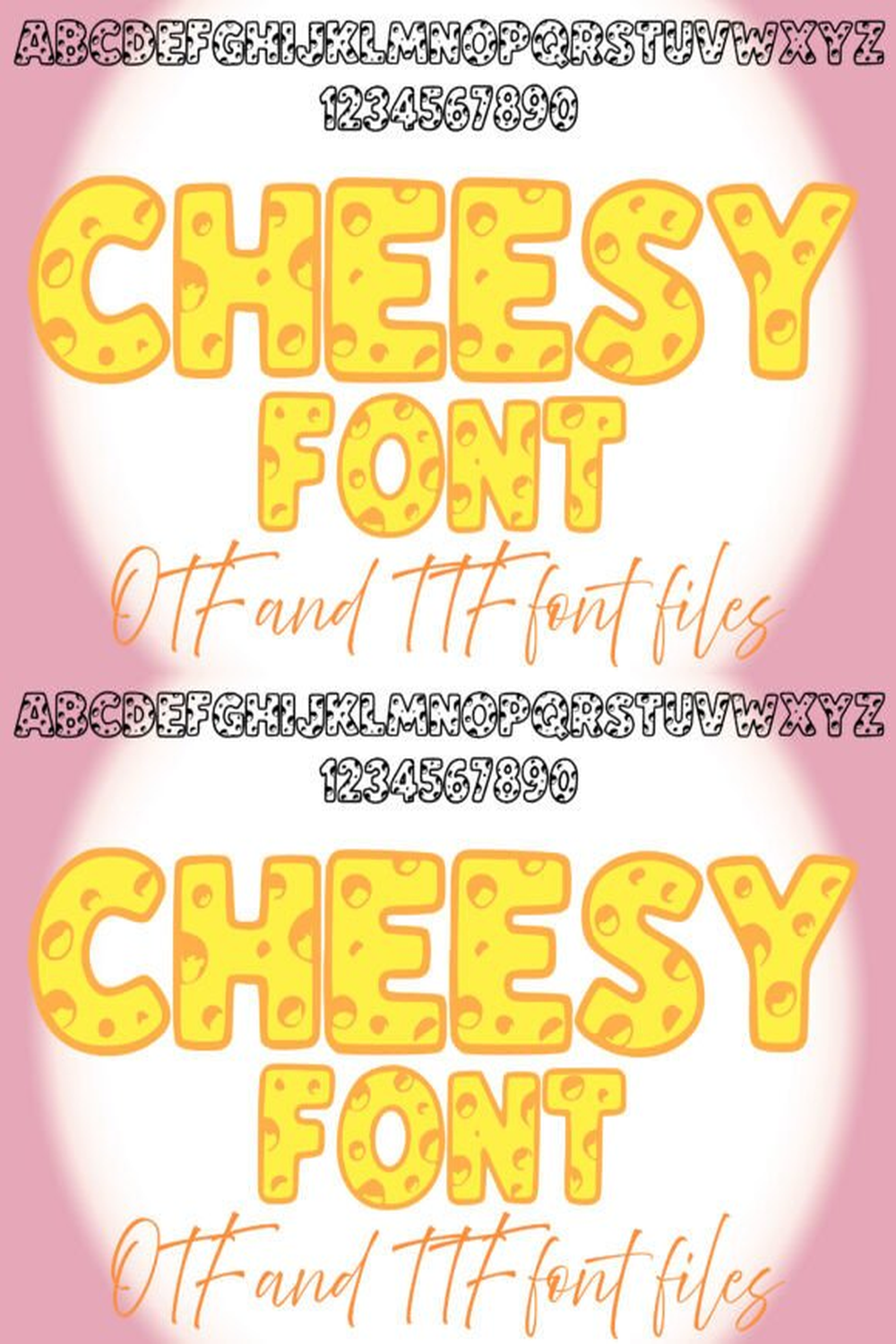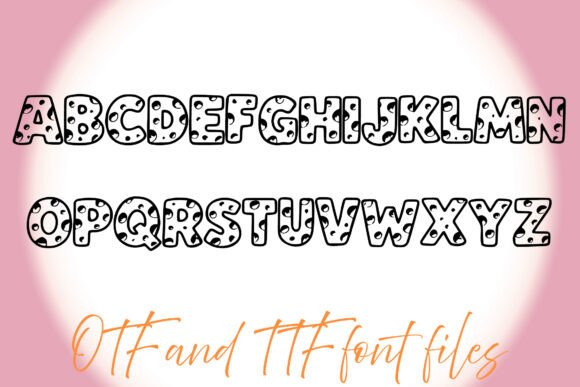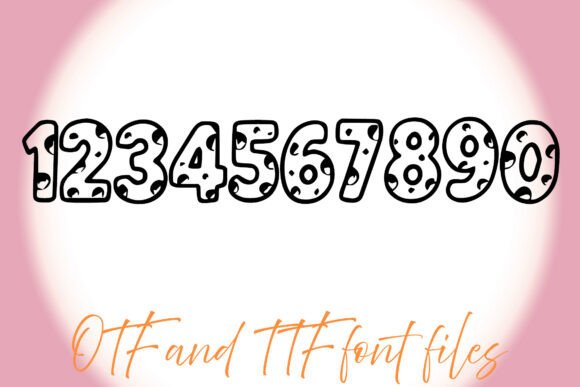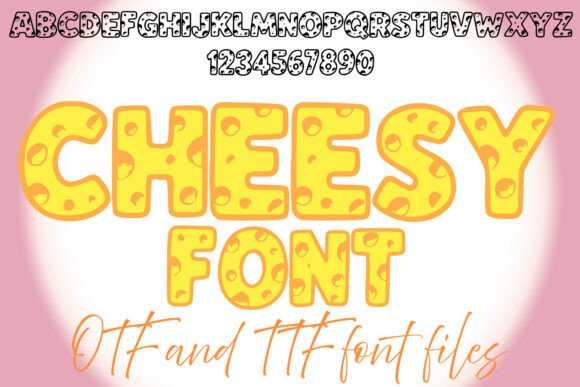
Cheesy Font
About the Cheesy Font
Elevate your designs with Cheesy Font, a font that combines sophistication with readability. Packed with character and melty goodness, Cheesy Font oozes playful charm. Its chunky cheese-textured letters are perfect for food packaging, kids content, party posters, and more!